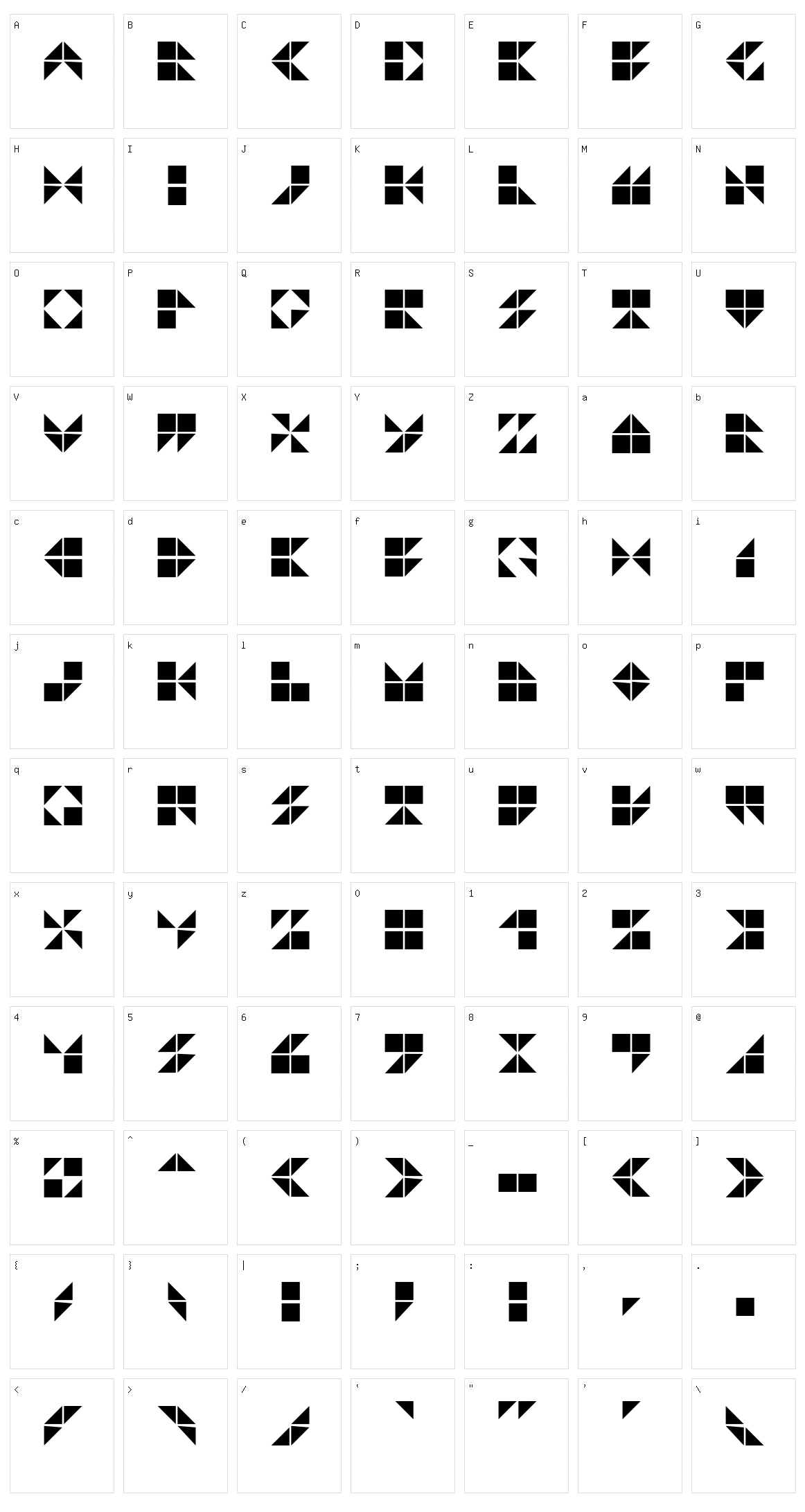
The free font H19A Luna is carefully designed by Ryo Higashi, showcasing a thoughtful balance of creativity and usability and falls under the Square font style. When you download the ZIP file, it contains only 2.29 KB of font files, making it lightweight and quick to download. Please review the license details below to understand permitted usage and distribution rights. If license information is not available, we recommend using this font for personal projects only or contacting the author directly for commercial usage permissions.